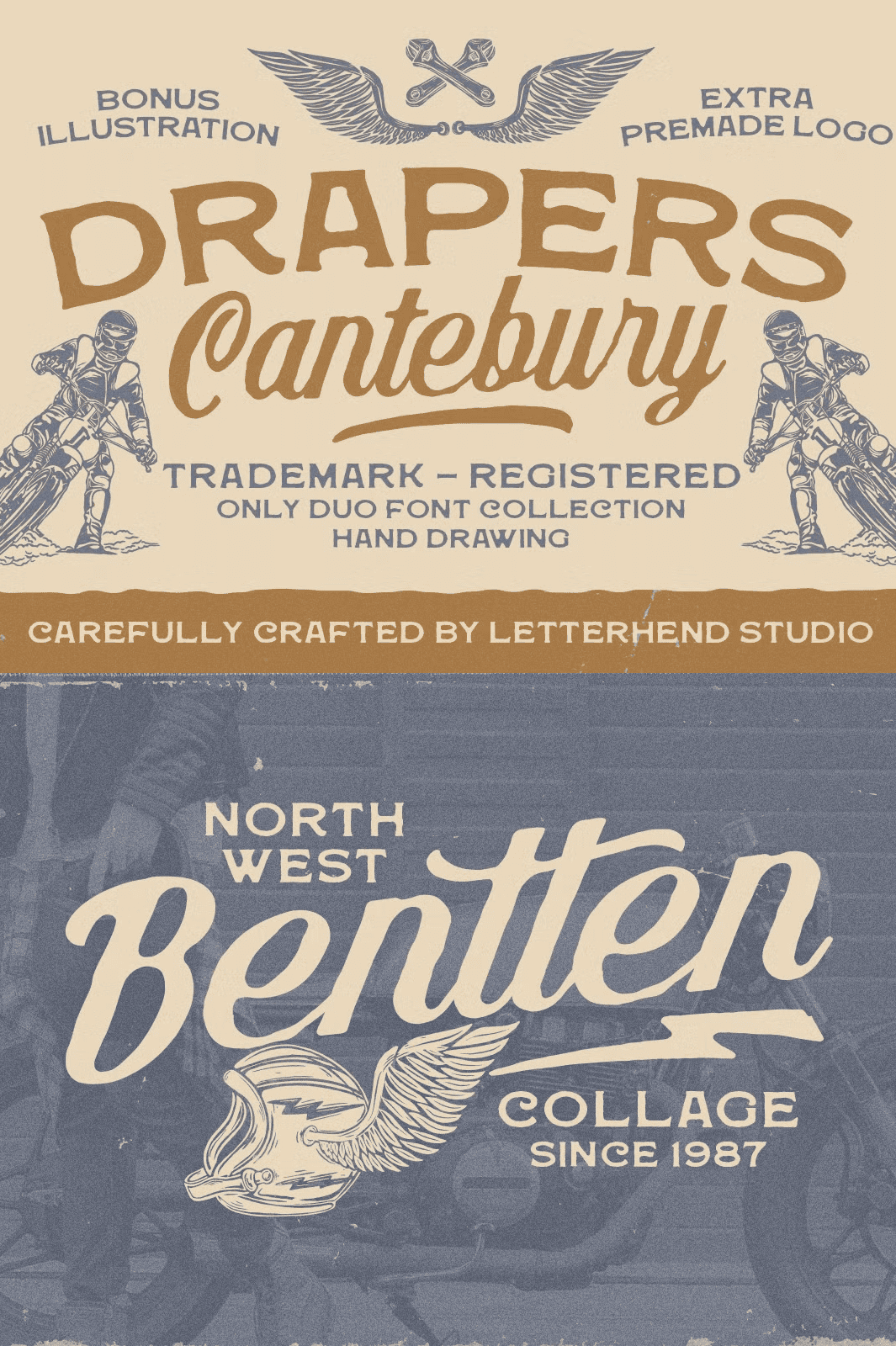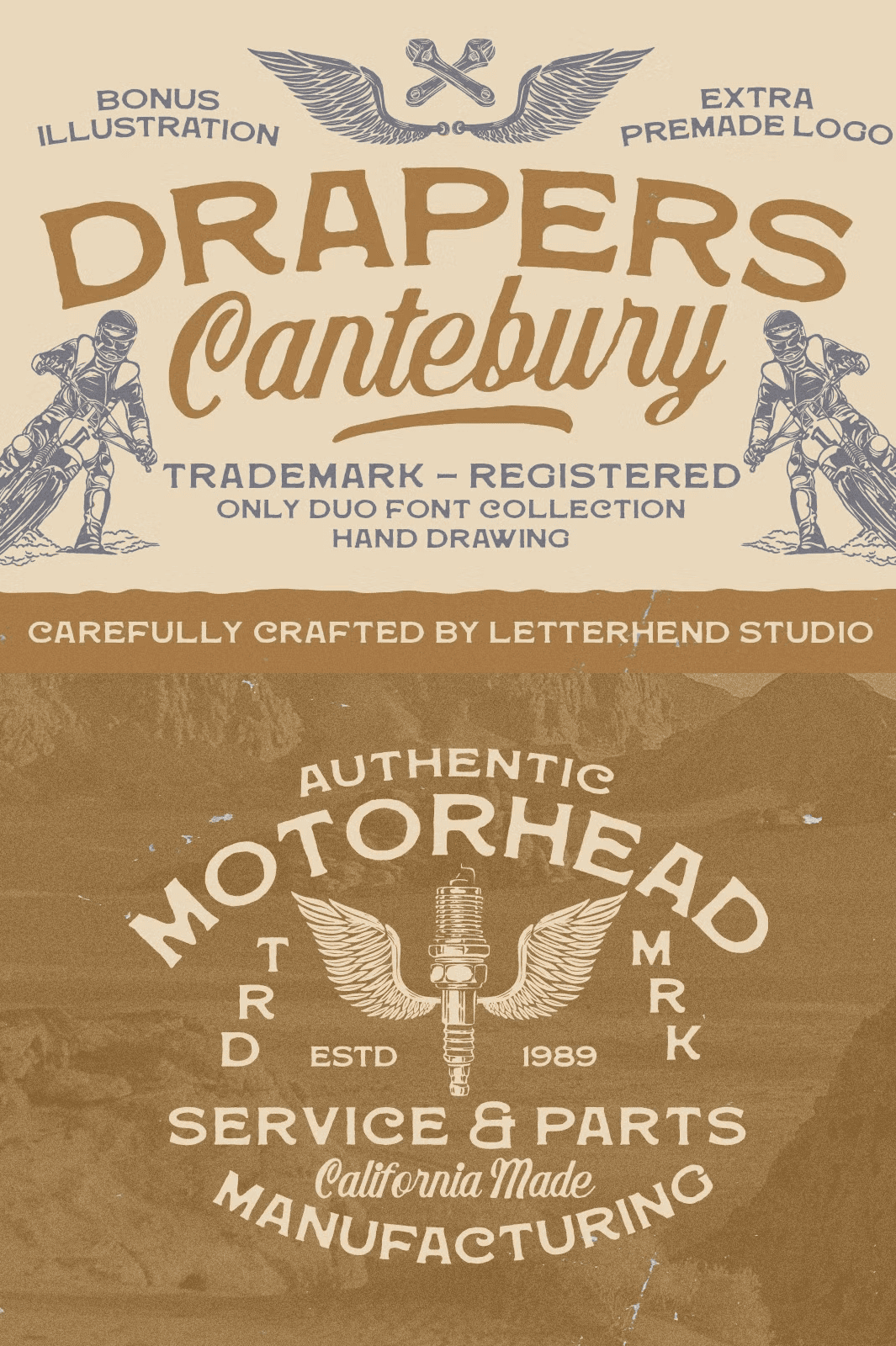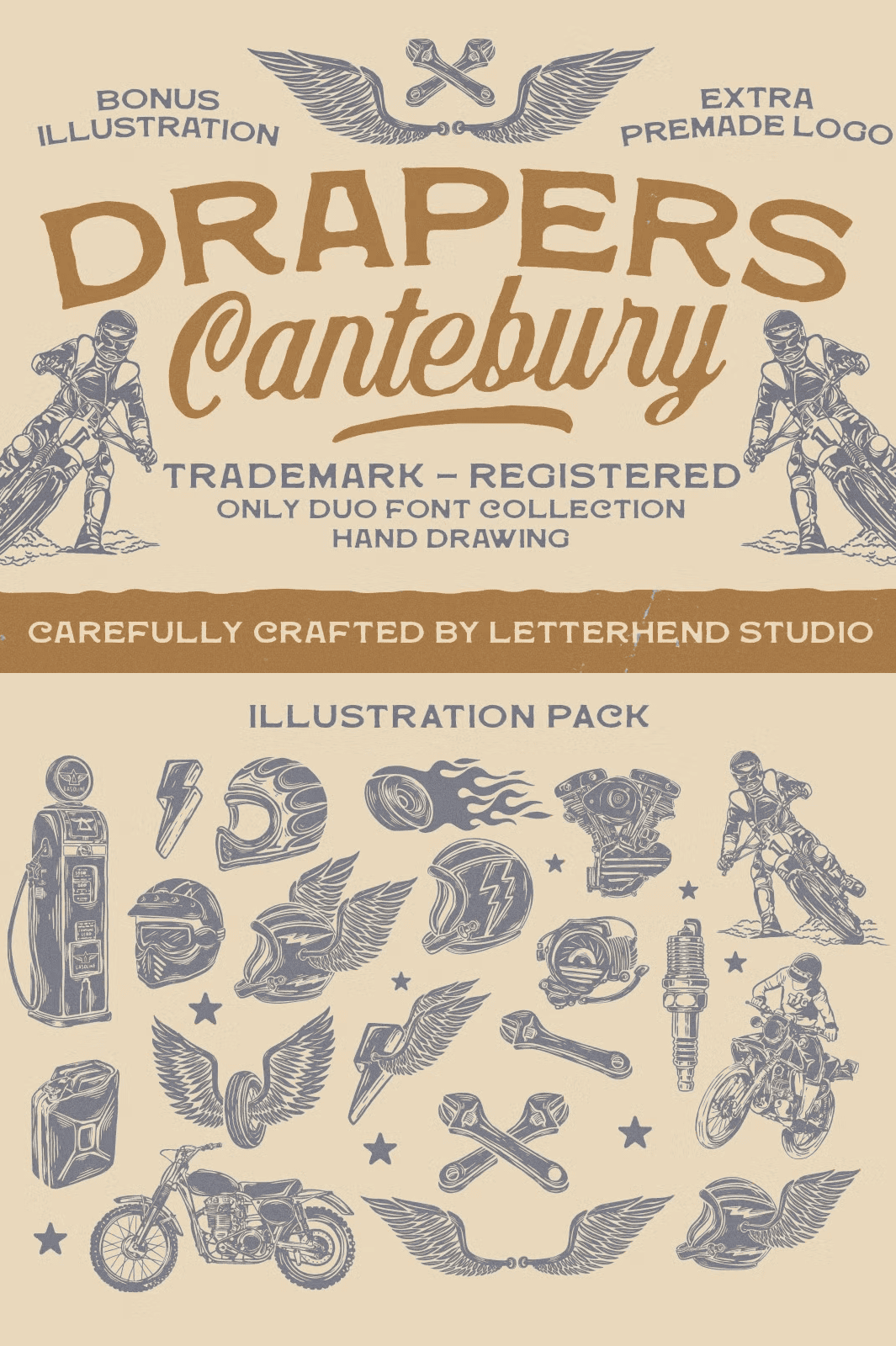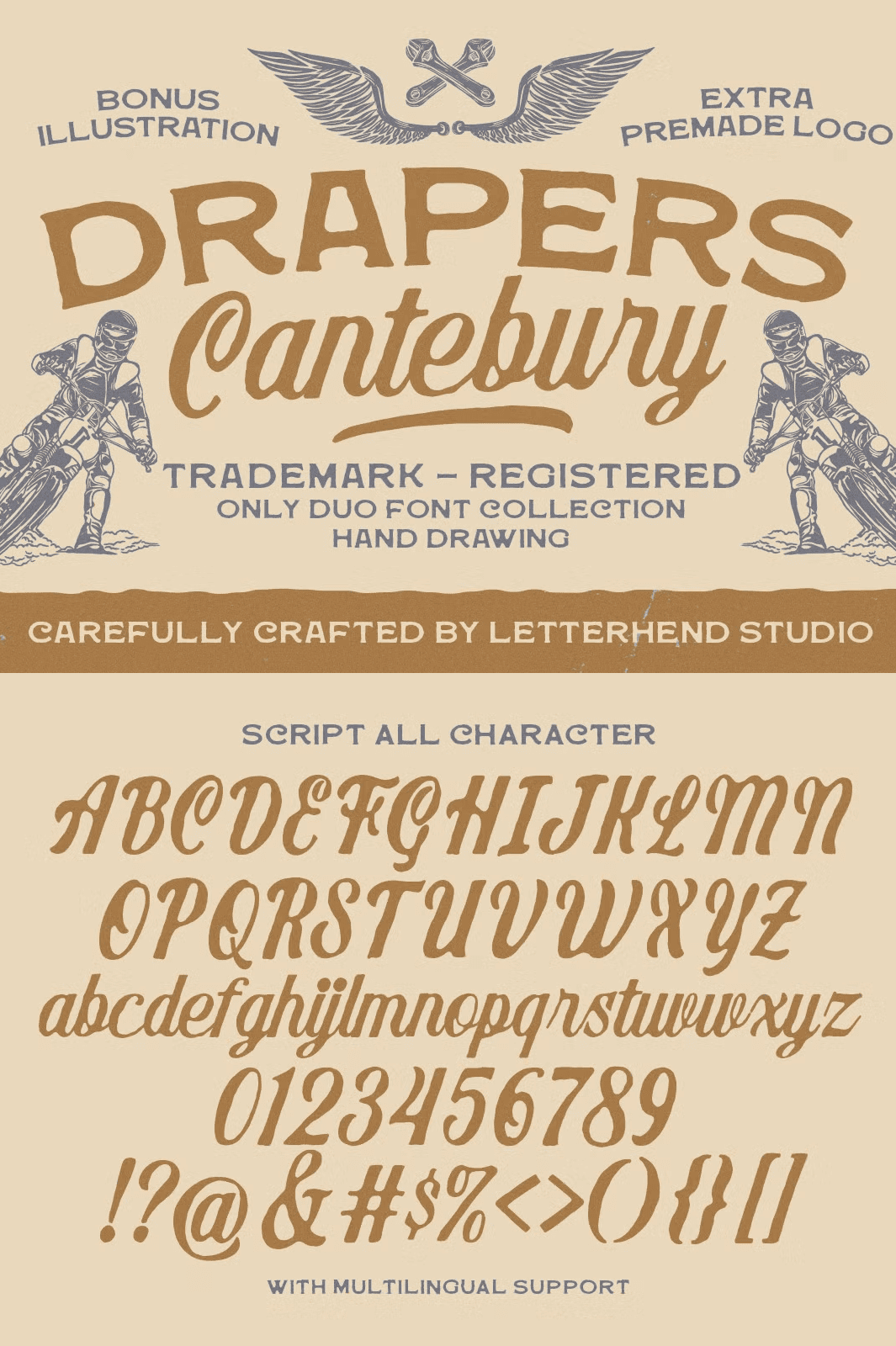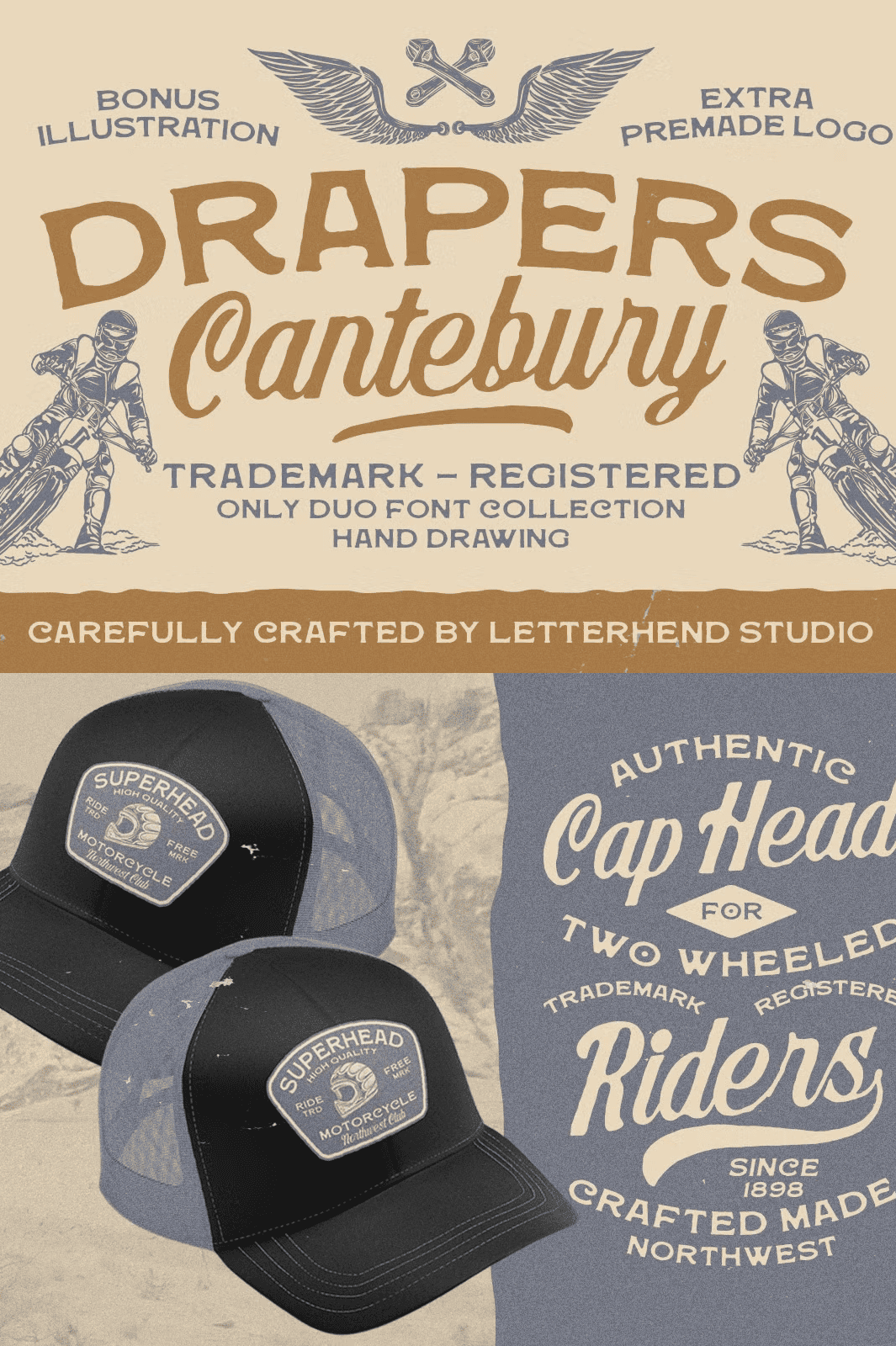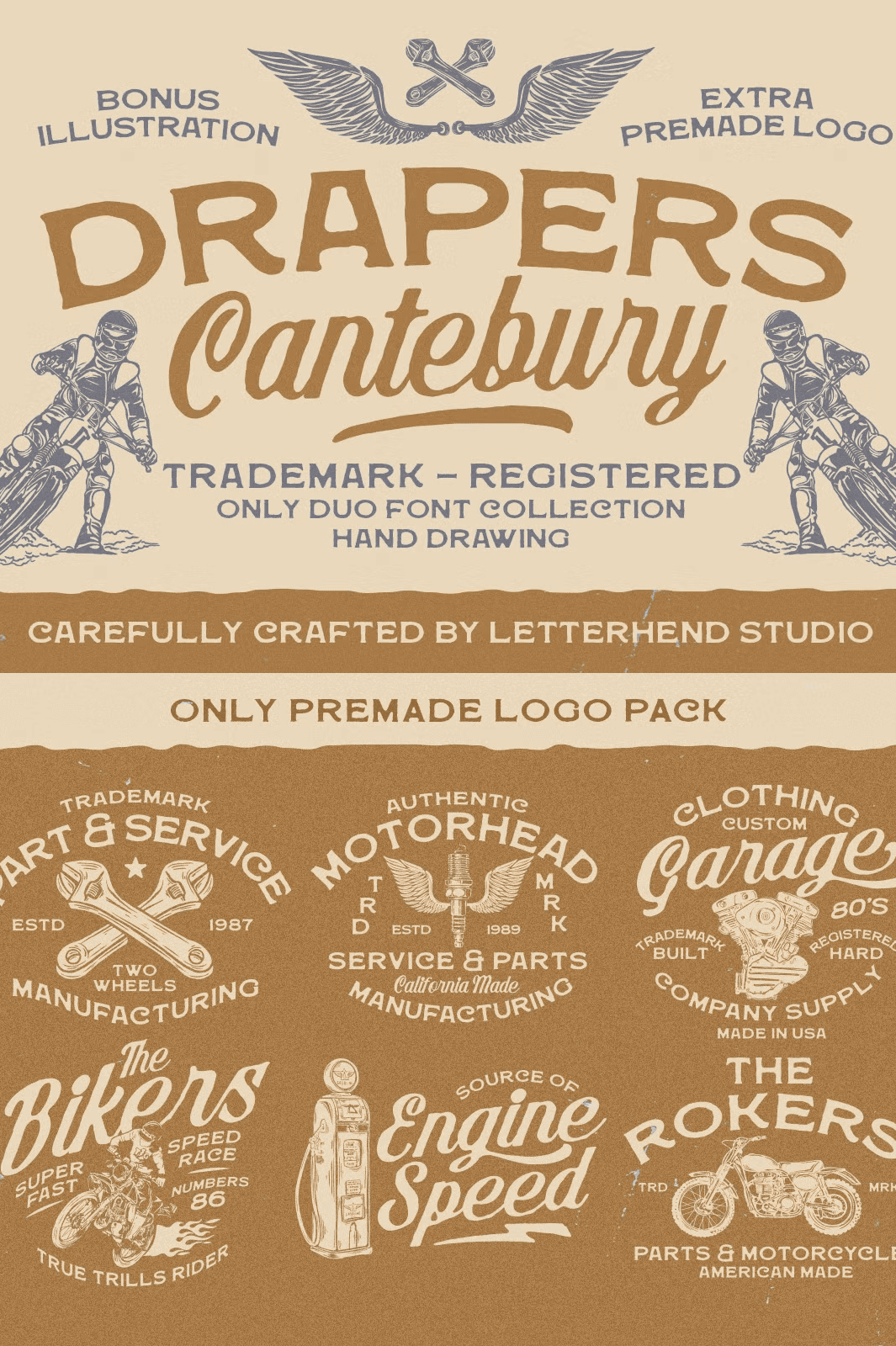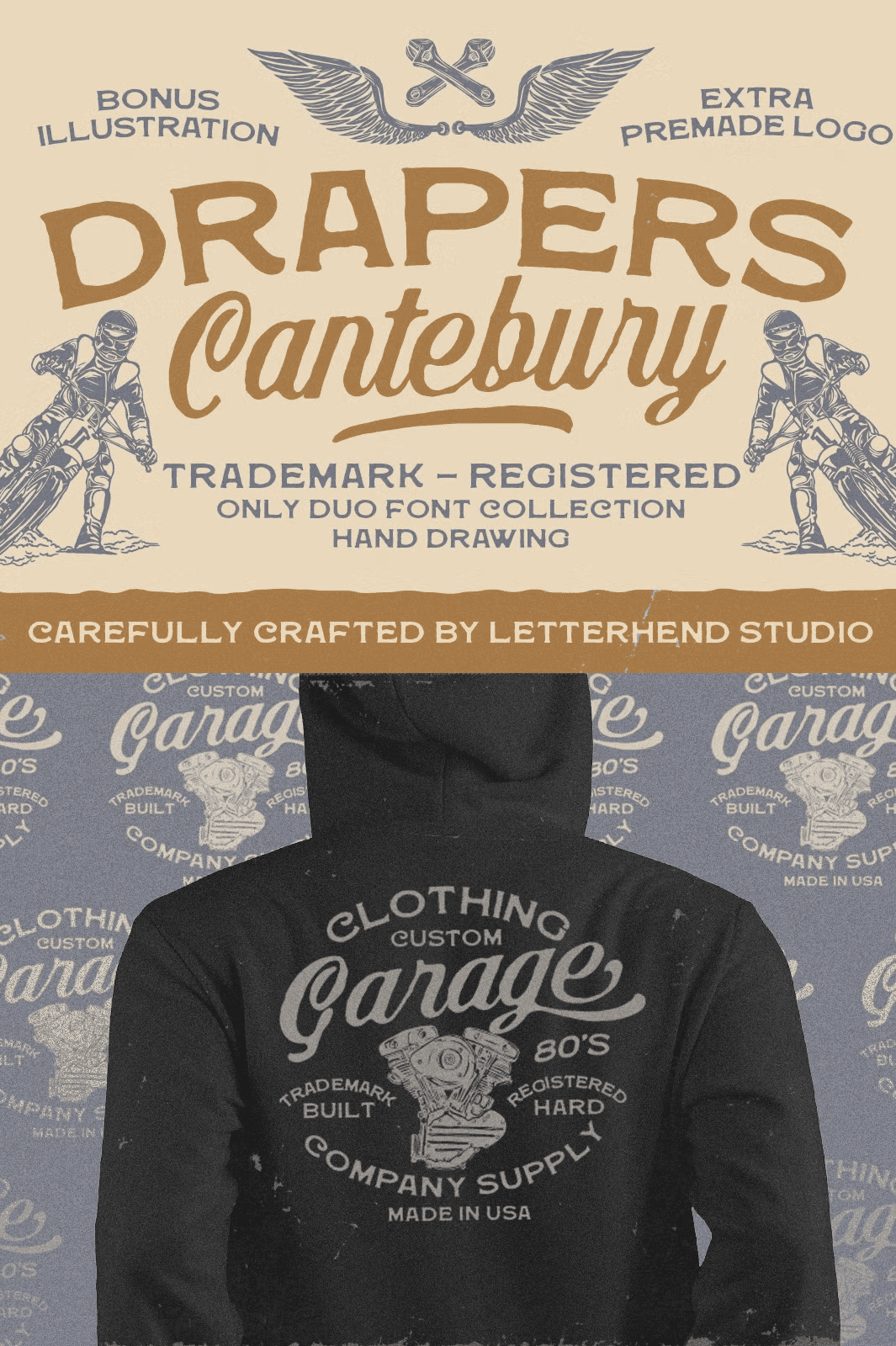
Drapers Canterbury Font Duo
Dominate Visual Spaces with Rugged Elegance and Timeless Charm
Forge a powerful visual identity with **Drapers Canterbury**, a striking hand-drawn font duo that masterfully blends bold, rugged serifs with timeless, classic script flair. This isn’t just a typeface—it’s a statement. Crafted for impact, it delivers a vintage-inspired aesthetic that adds instant character, depth, and authenticity to any project. Whether you’re building a brand, designing a limited-edition apparel line, crafting a poster that grabs attention, or developing sophisticated packaging, Drapers Canterbury gives your work an undeniable edge.
Every stroke is designed to command attention and convey a sense of heritage and craftsmanship. The strong, assertive contrast of the serif elements paired with the flowing, expressive script creates a dynamic, balanced tension that elevates your designs from ordinary to extraordinary. It’s the perfect fusion for creators who crave both strength and soul in their typography.
– **Full Character Set:** Access uppercase and lowercase letters, numerals, punctuation, and special symbols for complete typographic freedom.
– **Creative Alternates & Ligatures:** Personalize your message with a variety of style options. Swap in unique glyphs and smooth character connections to add individuality and flair.
– **Multilingual Support:** Create designs that resonate globally with full coverage of international language characters.
Instantly Elevate Your Next Project with Drapers Canterbury